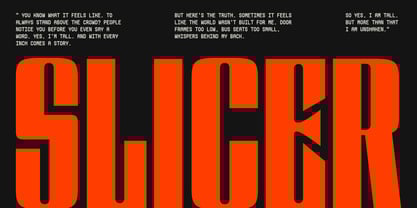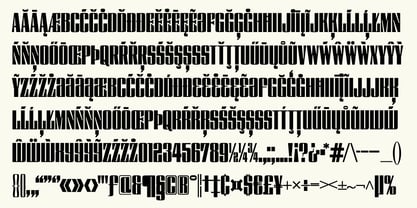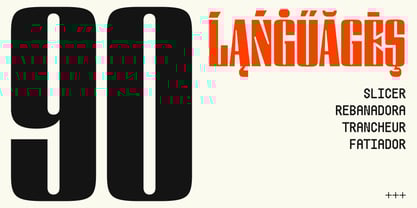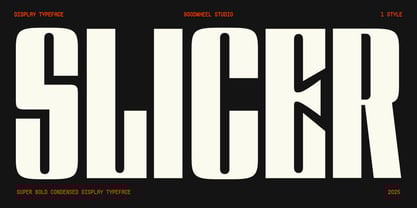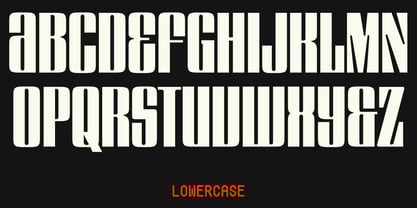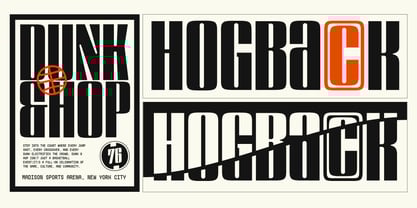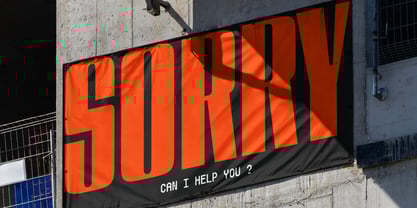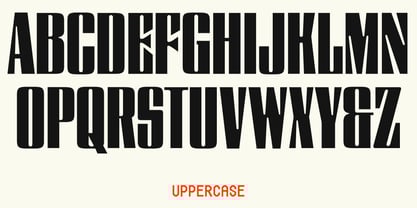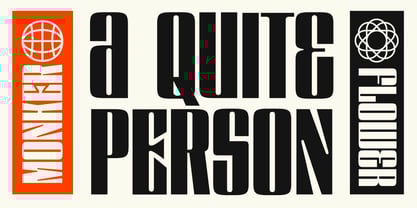
GW Slicer
by Goodwheel Studio
The GW Slicer Font Family was designed by Ilham Herry, Akbar Gumelar and published by Goodwheel Studio. GW Slicer contains 1 styles. More about this family
GW Slicer is Super Bold Condensed Display Typeface with thick and thin contrast type give a fearless display typeface built for maximum impact. With its super bold, tightly condensed forms and sharp cut-in details, this font slices through the noise and commands attention. Perfect for posters, headlines, sports branding, music covers, and any project that demands power and presence, SLICER brings a raw yet modern edge to your typography.
Designers: Ilham Herry, Akbar Gumelar
Foundry: Goodwheel Studio